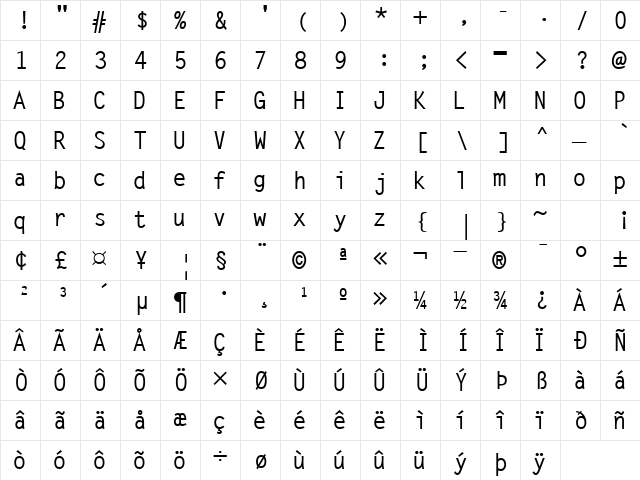
MicrofineSSK Bold
Design Context for MicrofineSSK Typeface
MicrofineSSK takes a measured approach to typography — its balanced proportions and neutral character make it a reliable workhorse for both digital and print work. The heavy weight commands attention and anchors typographic hierarchies.